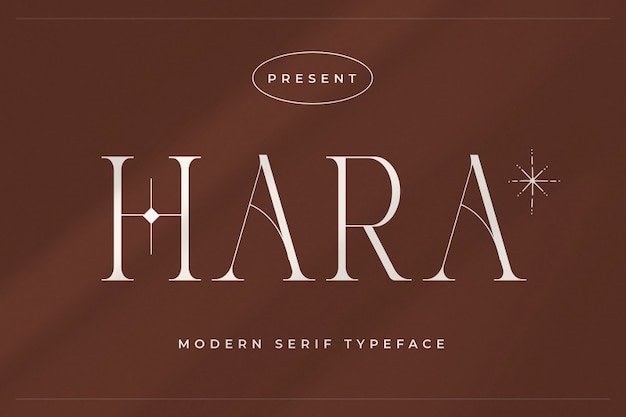
Hara Font
Hara is a decorative font rich with elegant swashes and intricate details, perfect for adding a touch of sophistication to any design. Each letter is beautifully adorned with graceful flourishes, making it ideal for invitations, branding, and romantic themes. With its refined decoration and artistic flair, Hara brings a sense of elegance and charm, capturing attention with its ornamental beauty.